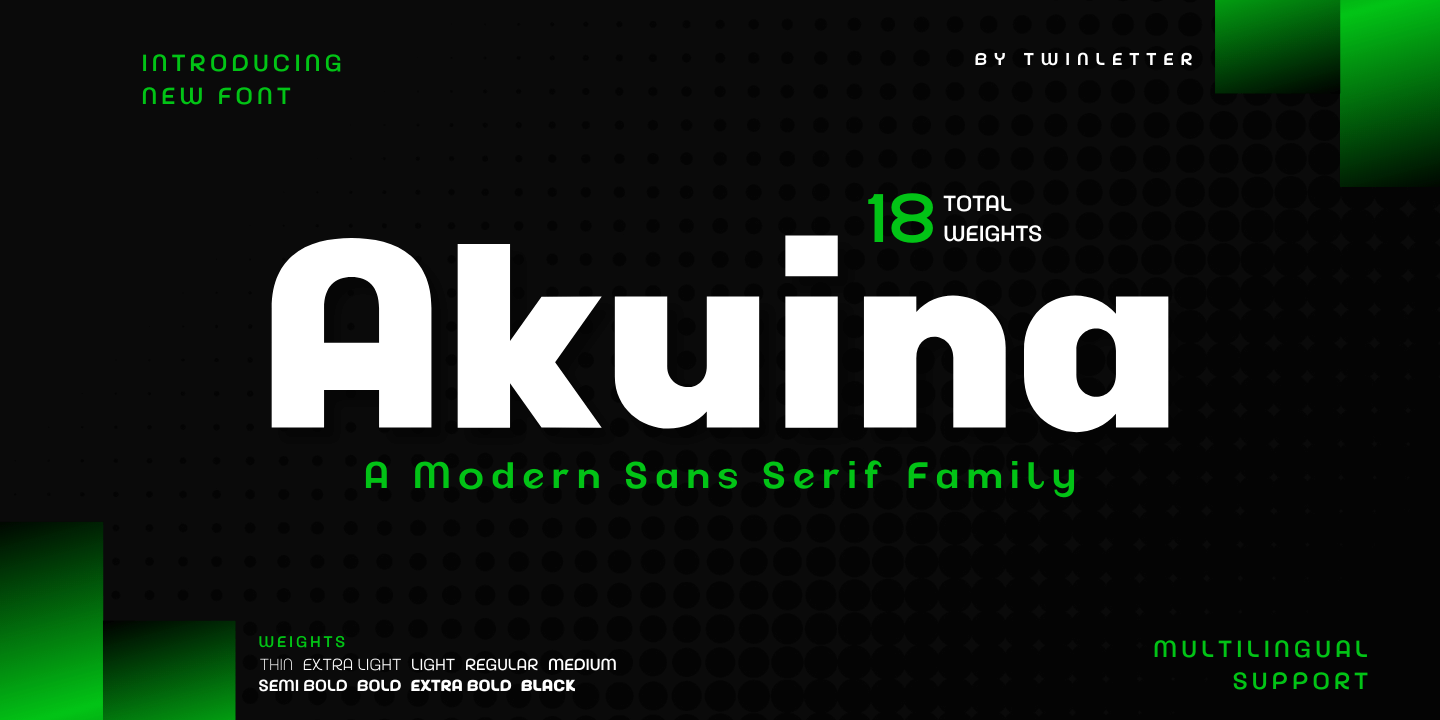
Akuina Font is perfect for Japanese cultural projects, zen meditation centers, minimalist design applications, traditional tea ceremony materials, martial arts school branding, Eastern philosophy publications, spiritual wellness promotions, and authentic Asian heritage communications.
This serene sans-serif typeface is exciting because it embodies the philosophical depth and aesthetic harmony of Japanese design principles through balanced letterforms that capture the meditative peace and cultural refinement of traditional Eastern wisdom.
The Akuina Font family includes light, regular, medium, and bold weights with zen-inspired alternates, Japanese decorative elements, and cultural character variants that enhance the authentic Eastern atmosphere of any Japanese-themed design project.
Serene and culturally rich, Akuina Font Free Download brings the timeless wisdom and aesthetic harmony of Japanese culture to contemporary typography through respectful cultural interpretation. This refined font embodies the philosophical depth and spiritual discipline that defines Japanese artistic traditions, making it invaluable for projects celebrating Eastern heritage and mindful living. Its balanced character reflects the patience and precision required to master traditional Japanese arts and the respect for natural harmony that guides Japanese design philosophy, resonating with audiences who appreciate authentic cultural expression and spiritual depth. Perfect for meditation centers and cultural institutions, this font ensures your message carries the cultural dignity and spiritual authenticity that Japanese traditions deserve while honoring the centuries of wisdom that created Japan's unique aesthetic philosophy. Whether used for tea ceremony invitations or martial arts materials, Akuina Font Free Download delivers the cultural sensitivity and Eastern authenticity essential for meaningful representation of Japanese culture and the profound spiritual principles that guide traditional Japanese art and philosophy.